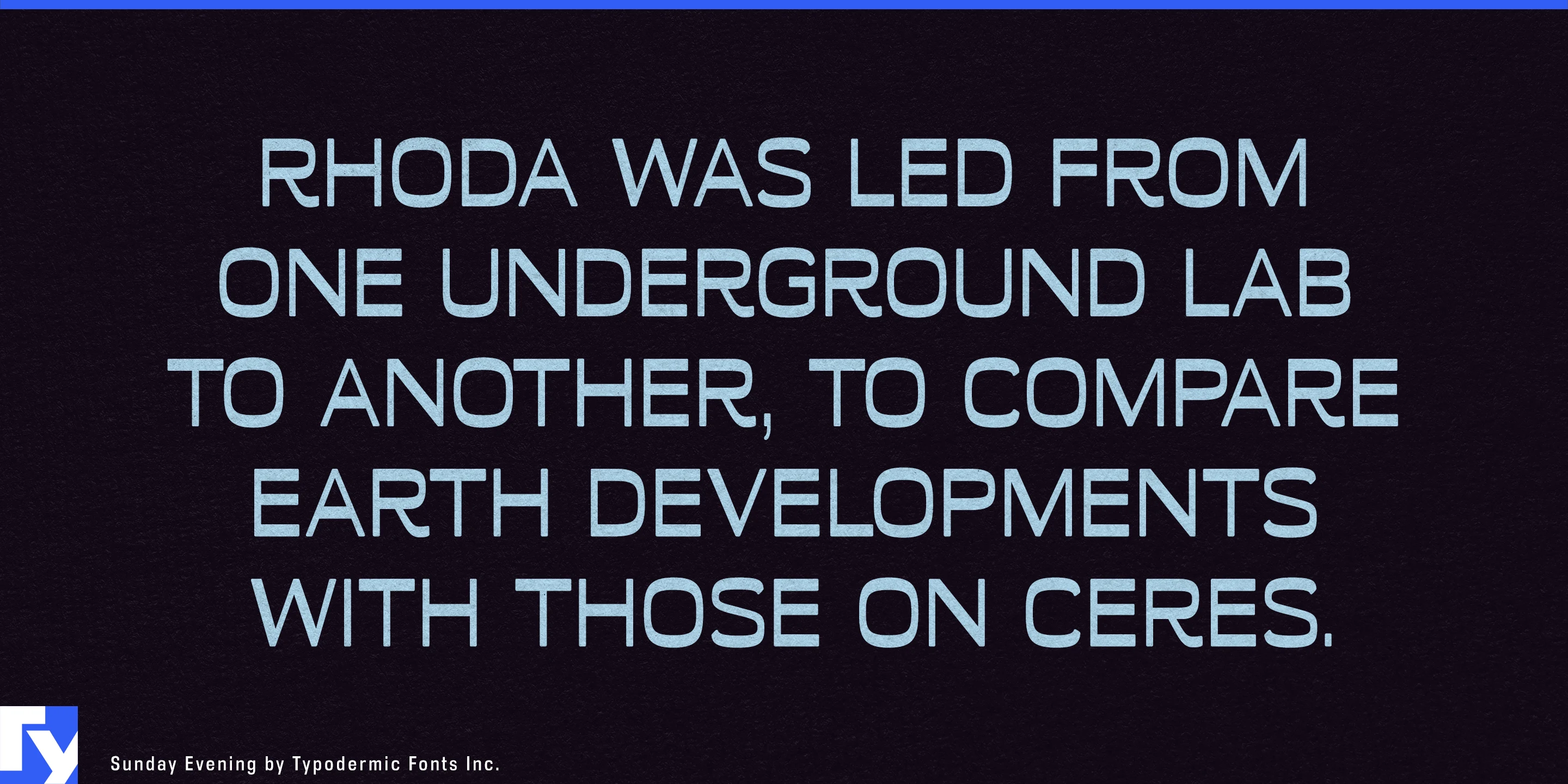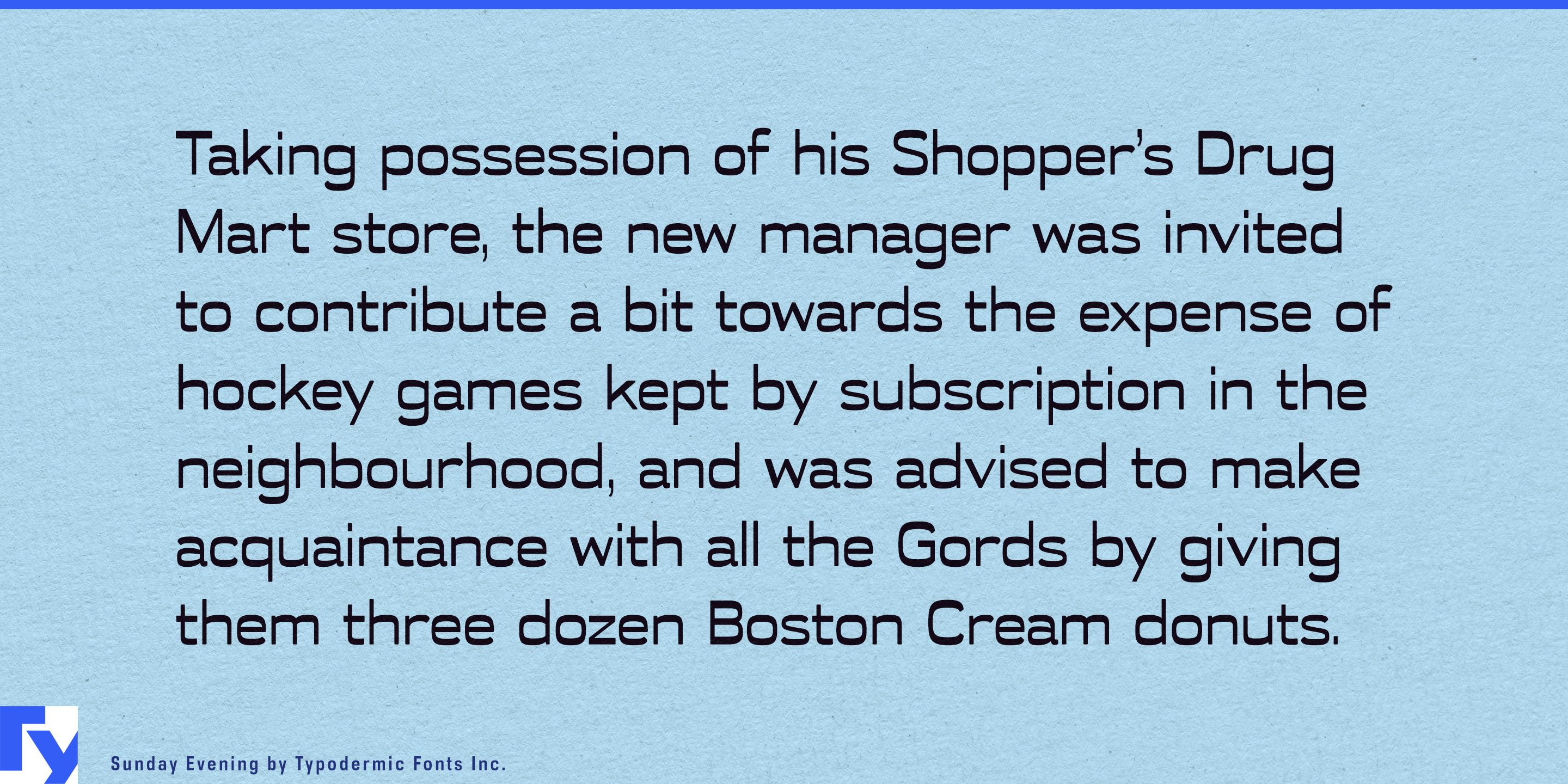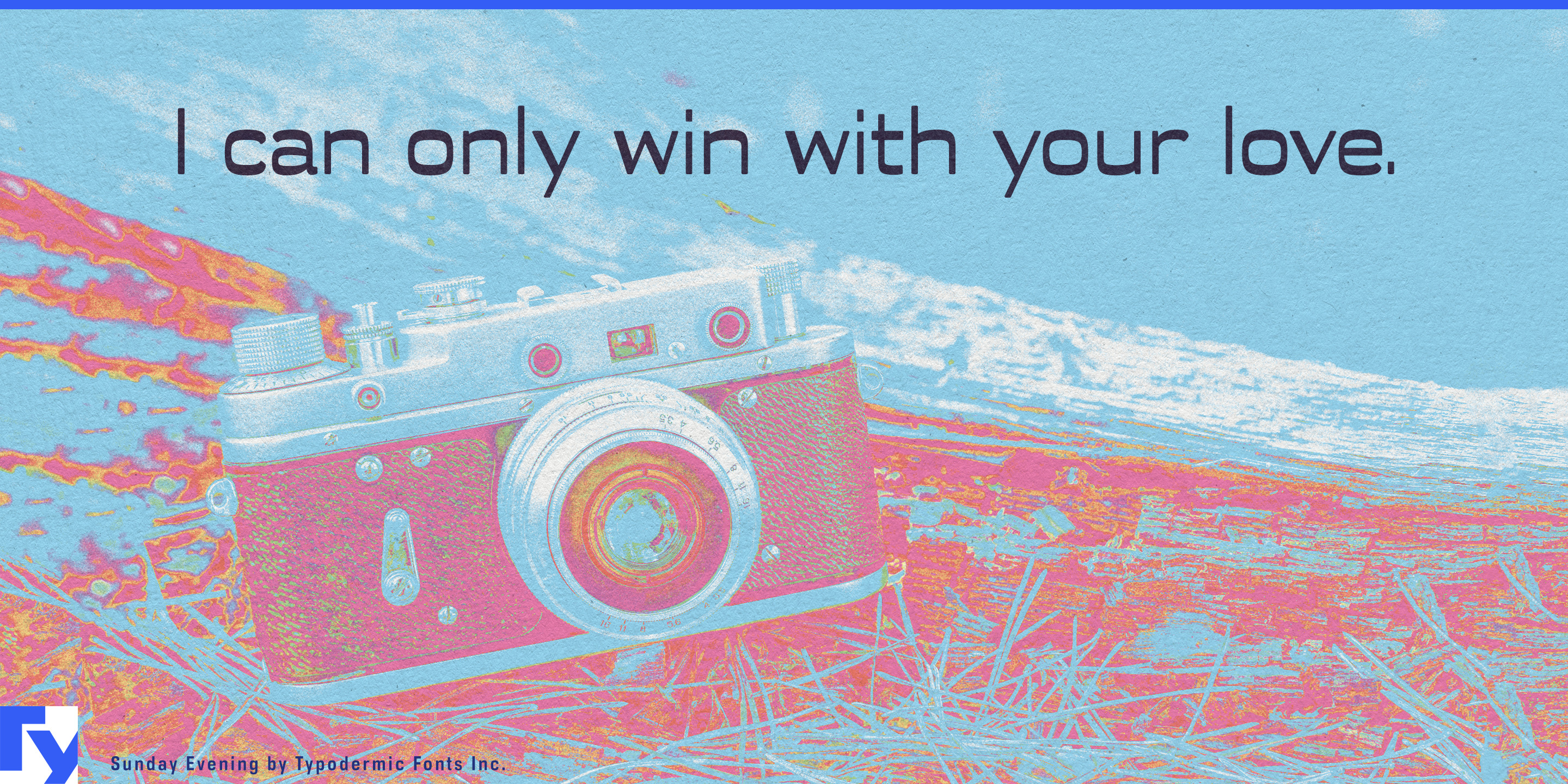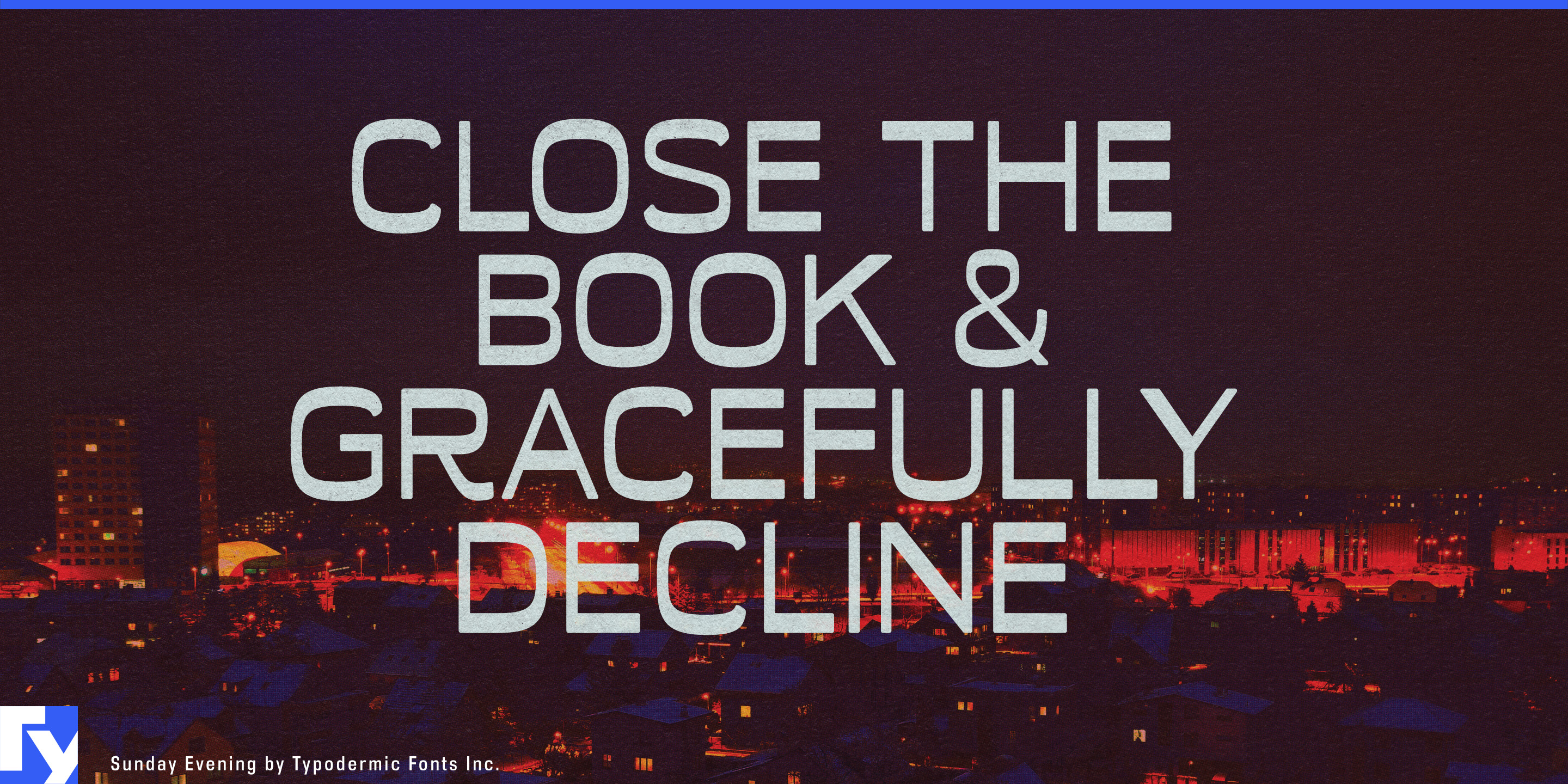
Sunday Evening
Some products sit awkwardly between technology and lifestyle. A conventional tech face can make them look cold or utilitarian; a decorative face can push too far toward fashion or nostalgia. Sunday Evening occupies the middle ground. Its superelliptical structure, reverse contrast, high waistlines, and curved terminals give it an engineered framework with a softer finish.
Sunday Evening is a single-style display face, so its strength is concentration rather than hierarchy. It works best for product names, collection titles, campaign lines, and major headings while another family handles specifications, prices, instructions, and longer reading.
Beauty technology is an especially natural fit. LED skincare masks, microcurrent devices, facial tools, smart mirrors, light-therapy products, hair-styling equipment, and premium home-spa hardware all need to bridge engineered performance and personal care. Sunday Evening can handle device names, product-family titles, cartons, retail displays, launch graphics, and app opening screens without giving the technology a hard industrial tone.
Fragrance and home-fragrance collections make equally good use of a single distinctive display style. Perfume flankers, scented candles, room sprays, diffusers, bath oils, and gift sets often need one memorable collection or scent name surrounded by quieter typography. Sunday Evening can provide that layer across cartons, bottle labels, candle vessels, gift-box sleeves, and counter graphics.
Premium non-alcoholic drinks offer another useful territory. Botanical sodas, sparkling tea, adult soft drinks, non-alcoholic aperitifs, tonic ranges, and sophisticated canned mixers can use Sunday Evening for master product names, flavors, bottle labels, can fronts, multipack cartons, and menu headings while a neutral companion handles detailed information.
Its mixture of technical geometry and leisure also suits listening bars, hi-fi lounges, record rooms, and music-focused hospitality. Venue names, listening-session titles, menu headings, coasters, window graphics, and event posters can acknowledge hi-fi culture without turning the space into an electronics showroom.
Decorative lighting provides a related design-industry application. Pendant systems, portable lamps, modular fixtures, architectural lighting, and connected lighting products can use Sunday Evening for collection names, fixture families, showroom graphics, catalog openers, and launch campaigns.
Sunday Evening does not need to become an entire typographic system. Its job is more specific: giving beauty devices, fragrance collections, botanical drinks, hi-fi hospitality, and lighting products a display voice that feels engineered without becoming cold, and decorative without becoming ornate.